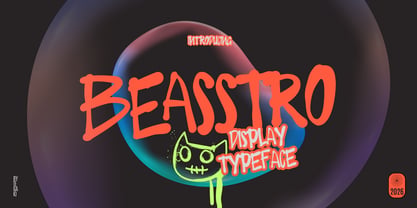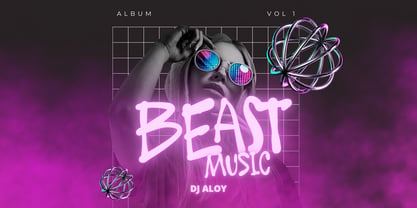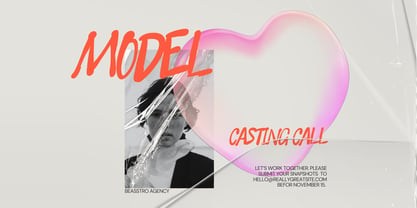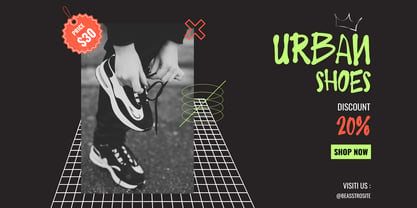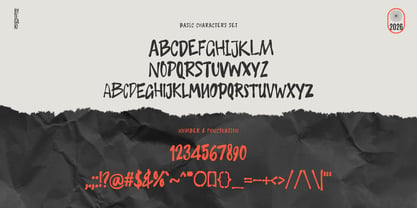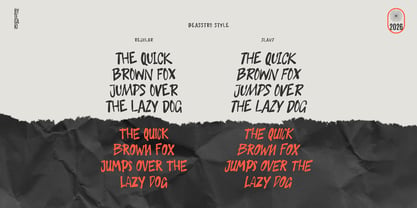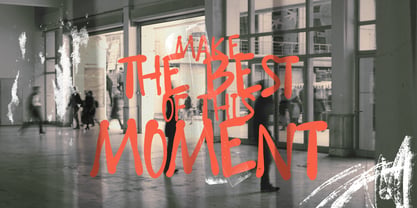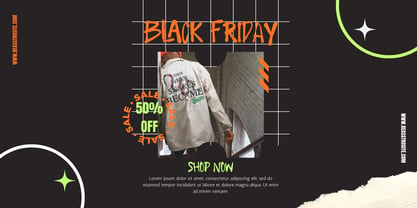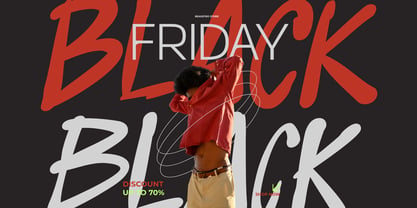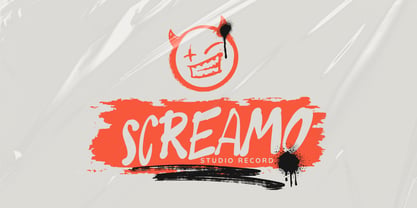
Beasstro
par Tegaki
La famille de polices Beasstro a été conçue par Rudi Suhairi et publiée par Tegaki. Beasstro contient 2 styles et options de package familial. En savoir plus sur cette famille
Beasstro - Display Typeface Beasstro is an expressive display typeface with a raw, hand drawn feel that instantly captures attention. Its irregular strokes and playful imperfections create a unique, edgy character perfect for projects that want to stand out and feel alive. From posters, album covers, and street-style branding to merchandise and social media graphics, Beasstro delivers a strong and artistic visual impact. Available in 2 styles: Regular and Slant, this typeface offers both a solid presence and a dynamic flow. It also features a variety of ligatures, allowing more expressive letter combinations and enhancing its handcrafted personality. Unconventional and full of attitude, Beasstro is built for bold, creative designs.
An independent type foundry rooted in the vibrant artistry of Indonesia. Driven by a deep passion for calligraphy and creative expression, we transform the grace of hand-drawn strokes into versatile digital typefaces. Our mission is to blend timeless handwriting charm with a fresh, modern aesthetic, bringing a lovely touch to every design project. We strive to deliver high-quality fonts that resonate with creative professionals worldwide.